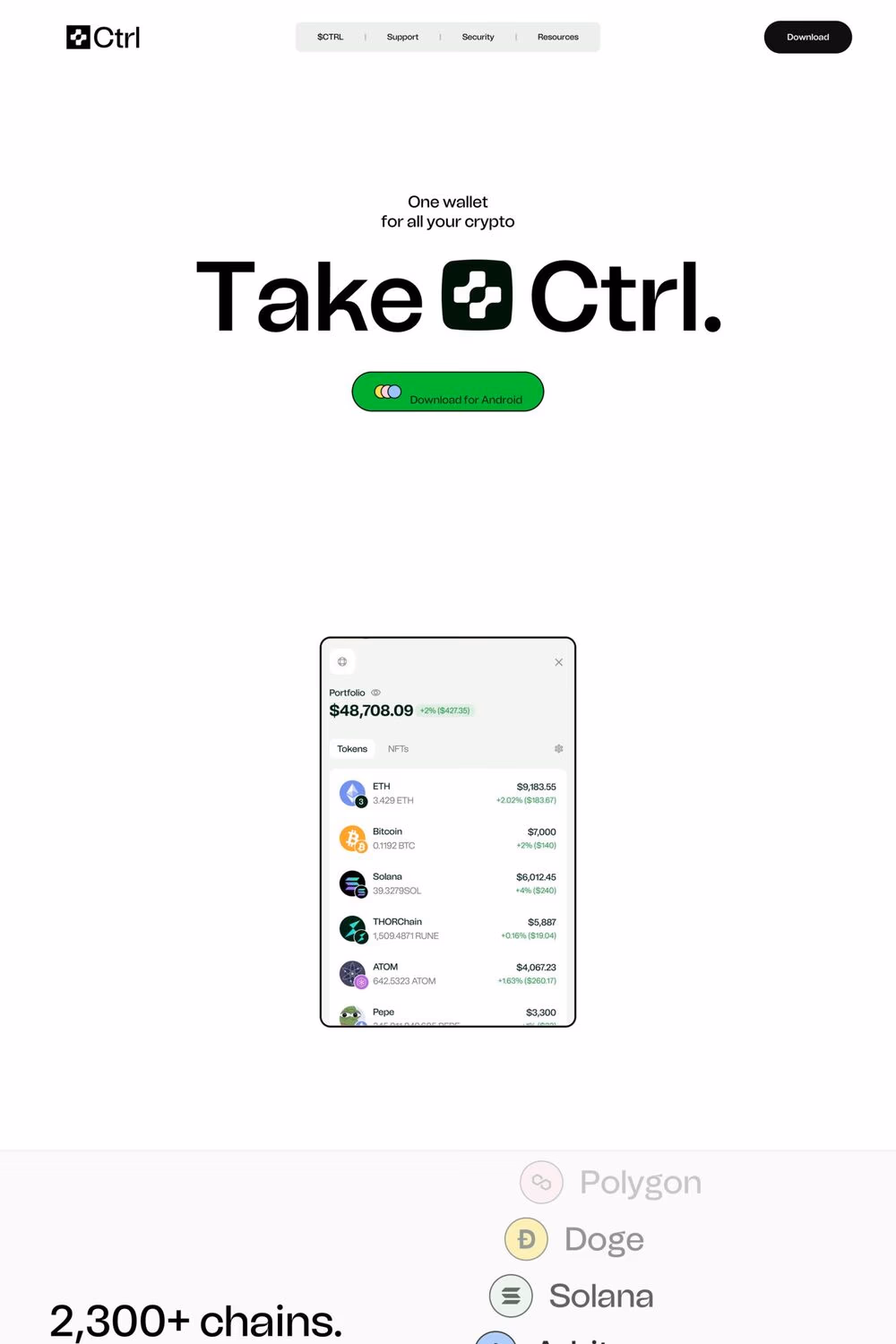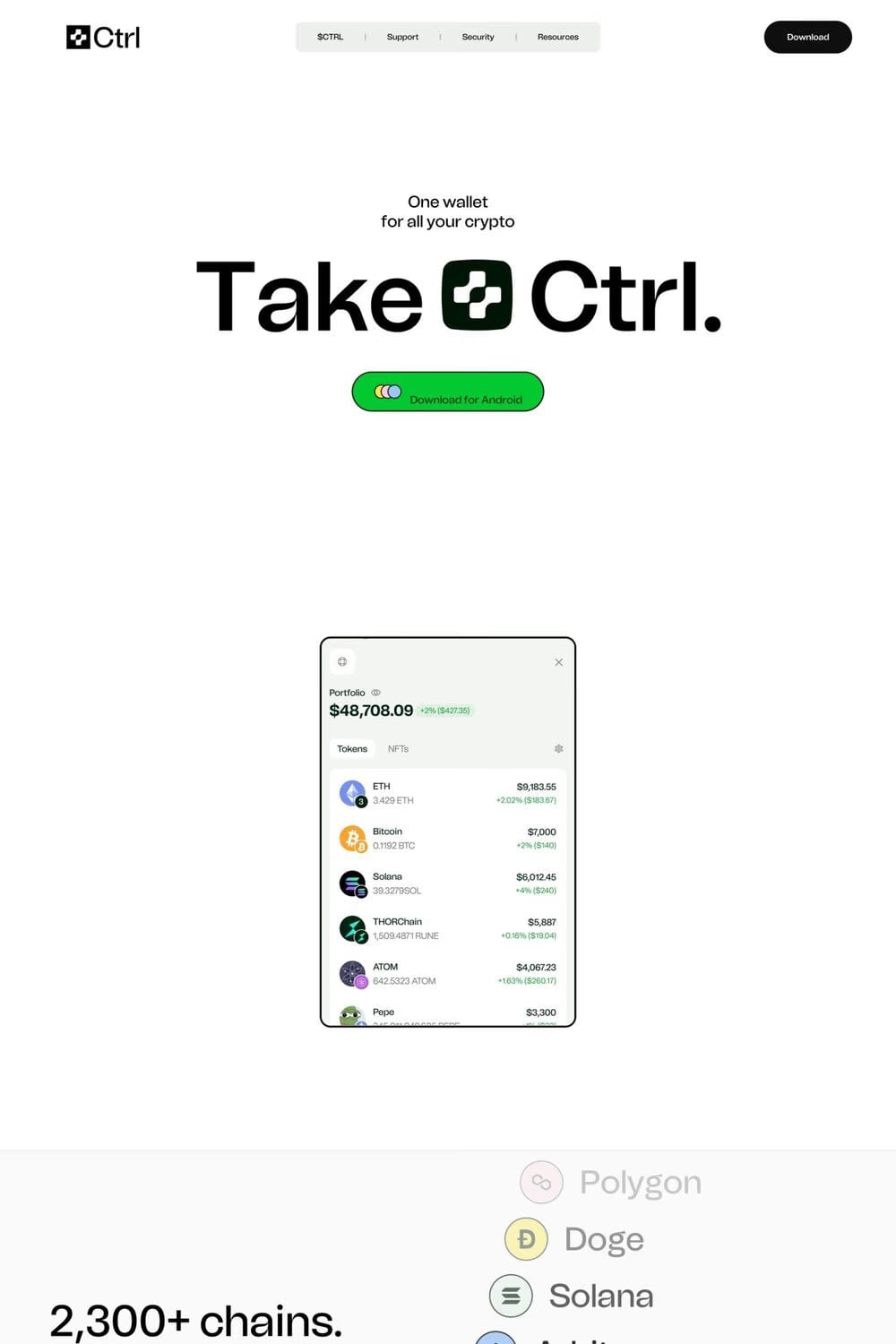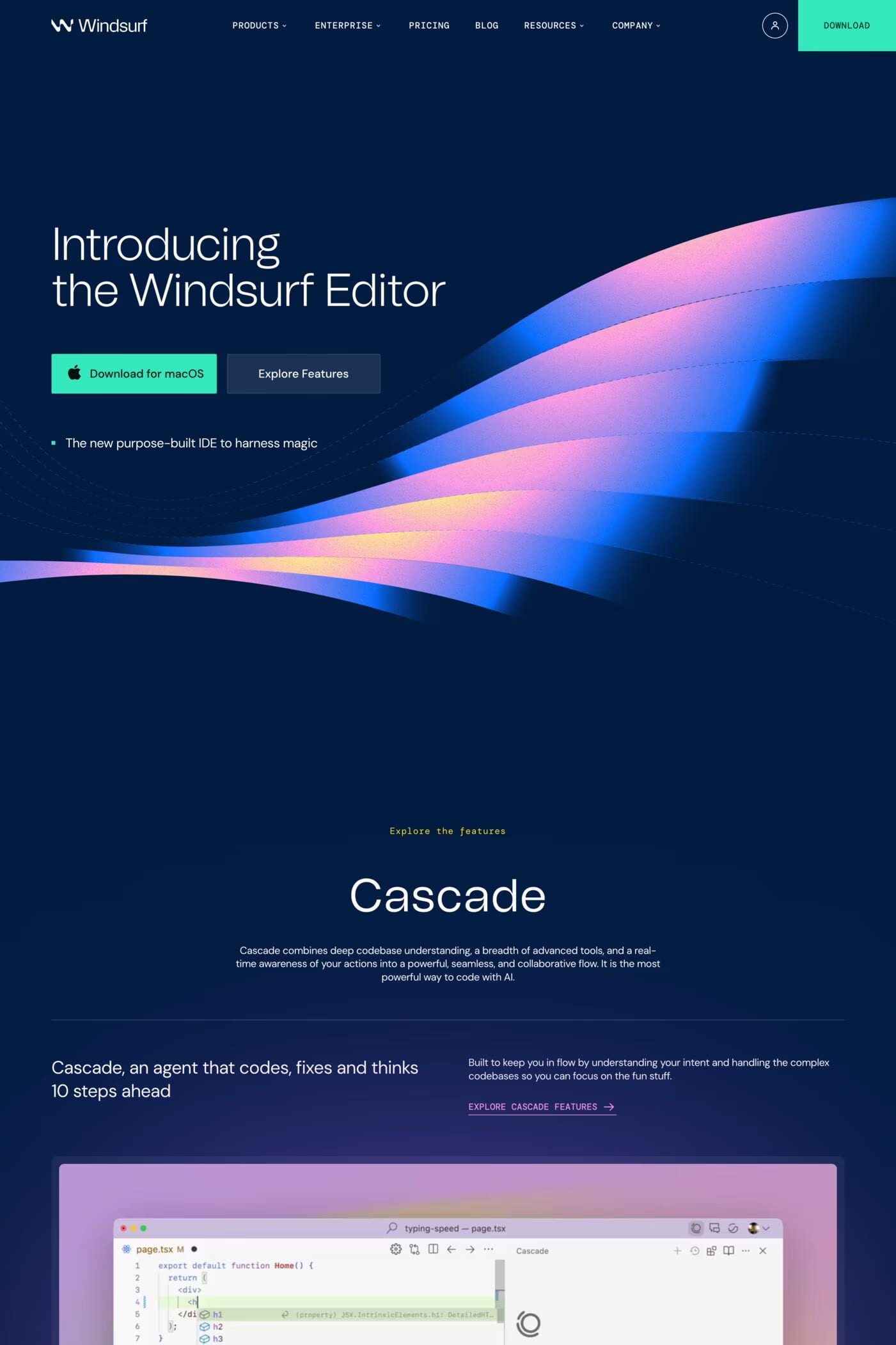
Tomato Grotesk is a sans-serif typeface from The Designers Foundry.
Tomato Grotesk is a modern grotesk family with simple geometric shapes and accentuated contrast that give it a strong display like personality. High contrast, tight spacing and ink traps make it perfect for use in print and on screens in small sizes. When used in large dimensions these features make it an extremely cheerful, versatile typeface for a range of different uses.
A1 features 3 websites using Tomato Grotesk, including Chutes, Windsurf, and Ctrl. They lean towards Colourful, Animated, and Dark design styles, and they’re most often built with SvelteKit, Next.js, and Nuxt.